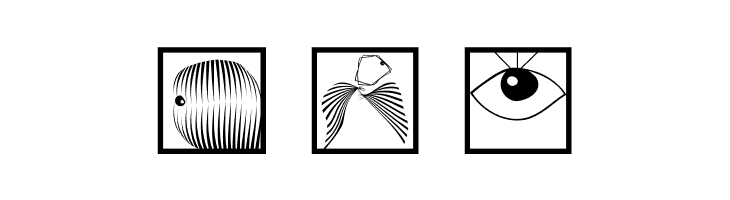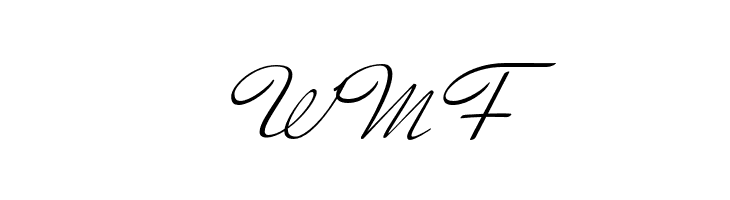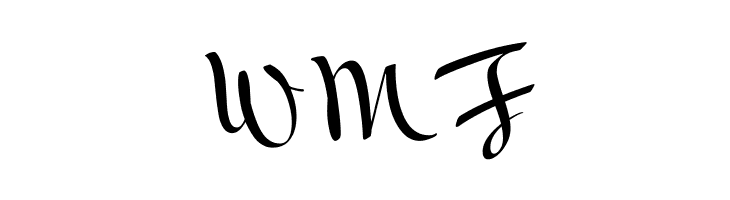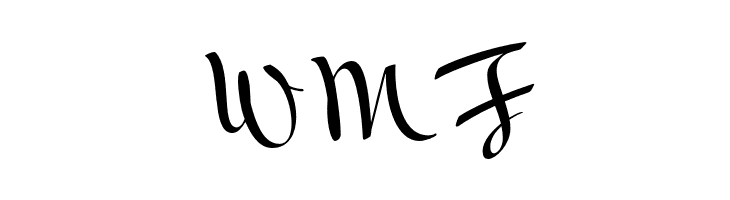
• MouseFruitFaces
A playful series of fruit and vegetable characters with abstract facial features.
• MouseVectorarts
Abstract, illustrative font with unique vector art for each character.
• Mr Bedfort
A sophisticated and flowing script font with elegant cursive letterforms.
• Mr Bedfort Regular
A dynamic and flowing script font with elegant cursive letterforms.
• Mr De Haviland Regular
An elegant script font with flowing, interconnected letters and a refined appearance.
• MR FUGLESANG CLEAN
A bold, geometric font with a modern, futuristic aesthetic.
• MR FUGLESANG OUTLINE
A bold, outlined font with a futuristic and geometric style.
• MR FUGLESANG REMIX
A bold, geometric font with a double-outline and modern aesthetic.
• MrBedfort-Regular
An elegant, flowing script font with a cursive, handwritten style.
• MrDeHaviland-Regular
An elegant, high-contrast script font with flowing, decorative curves.